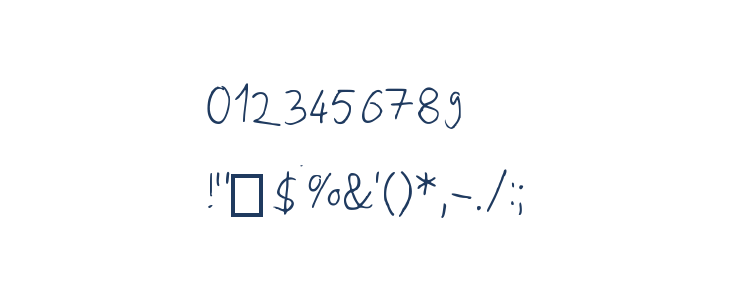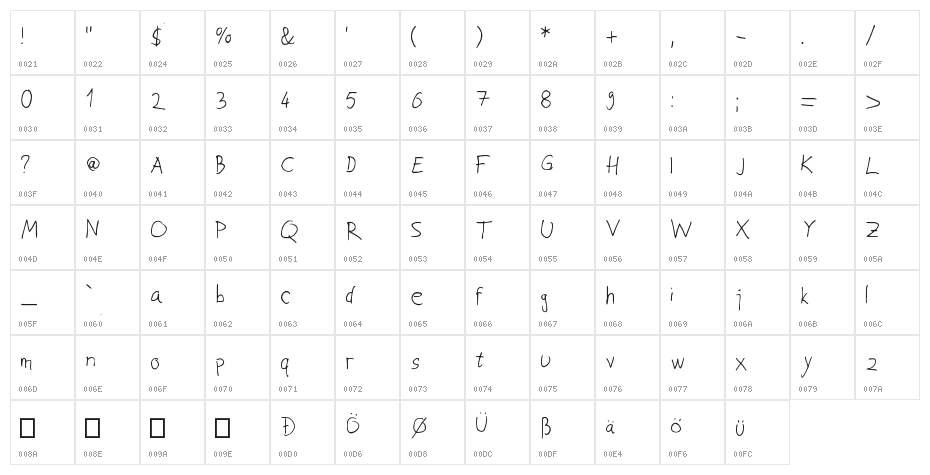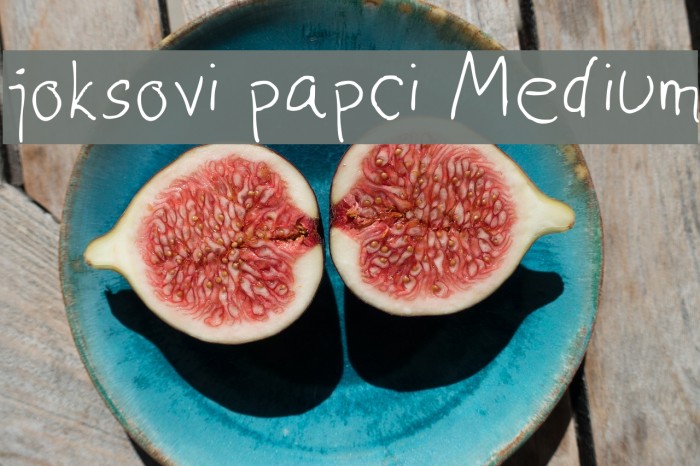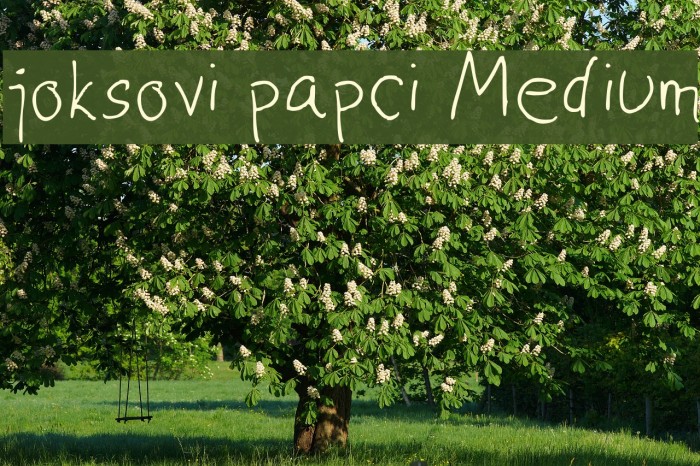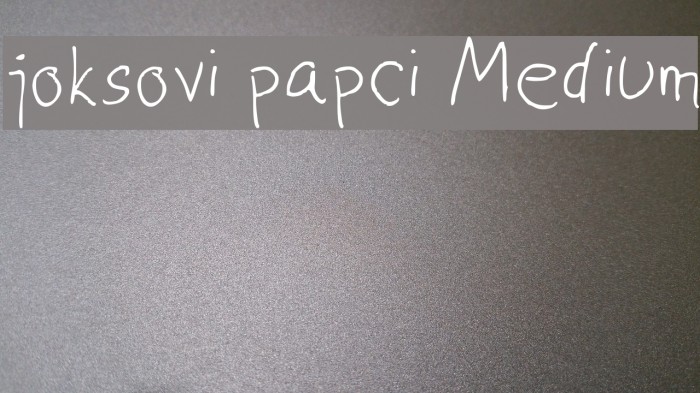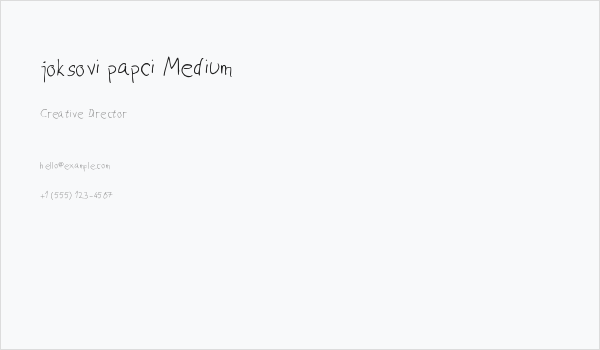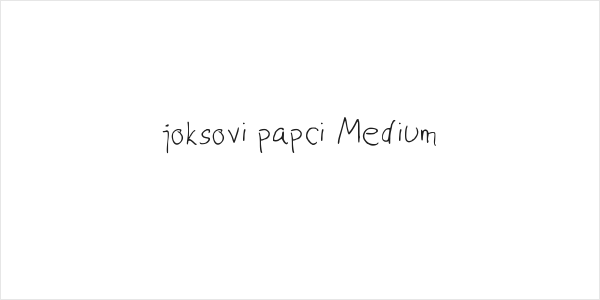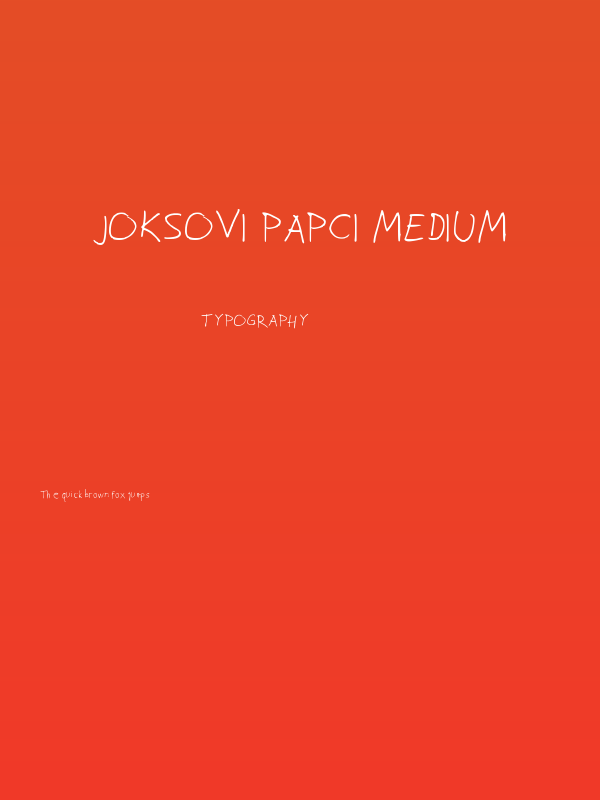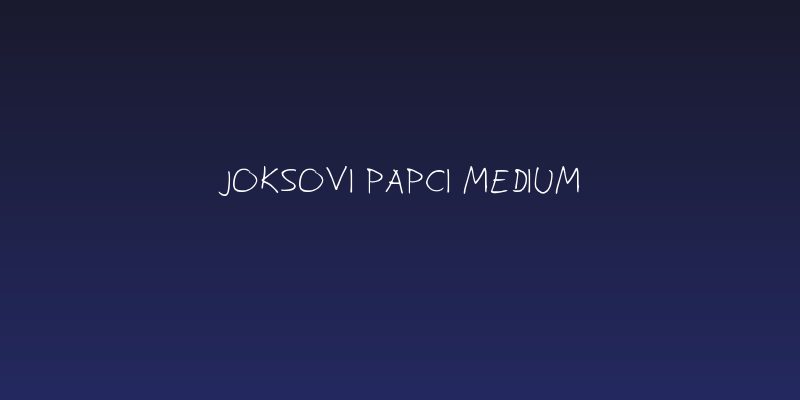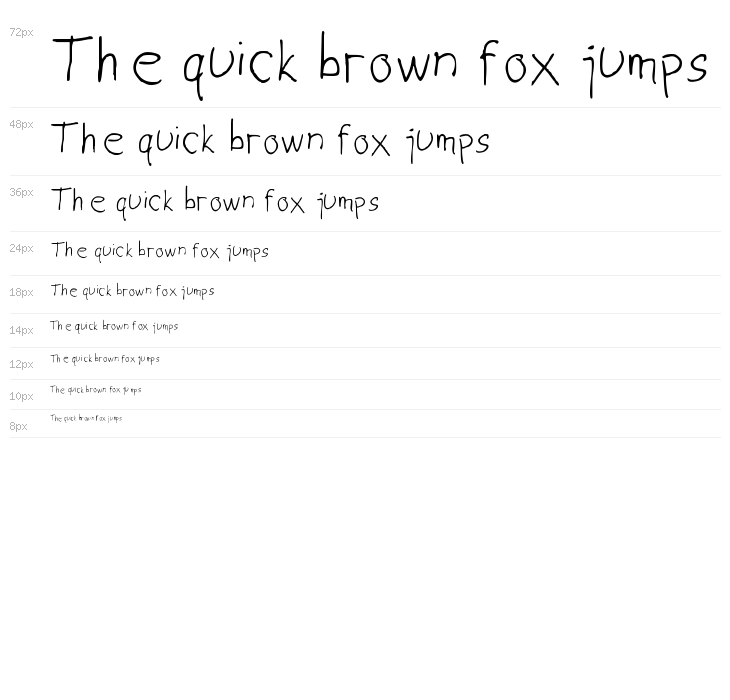
joksovi papci Medium Font
joksovi papci Medium Description
This font features a playful and casual handwritten style, characterized by its irregular strokes and slightly uneven baseline. The letters have a natural flow, mimicking the appearance of a quick, informal script. The uppercase and lowercase letters maintain a consistent style, with a slight slant that adds to the relaxed feel. The numerals and special characters are designed to match the overall aesthetic, ensuring a cohesive look across all text elements. This font's unique charm makes it suitable for projects that require a personal touch or a sense of whimsy.
| Proposed Projects | Ideal for greeting cards, invitations, personal blogs, and creative branding projects. |